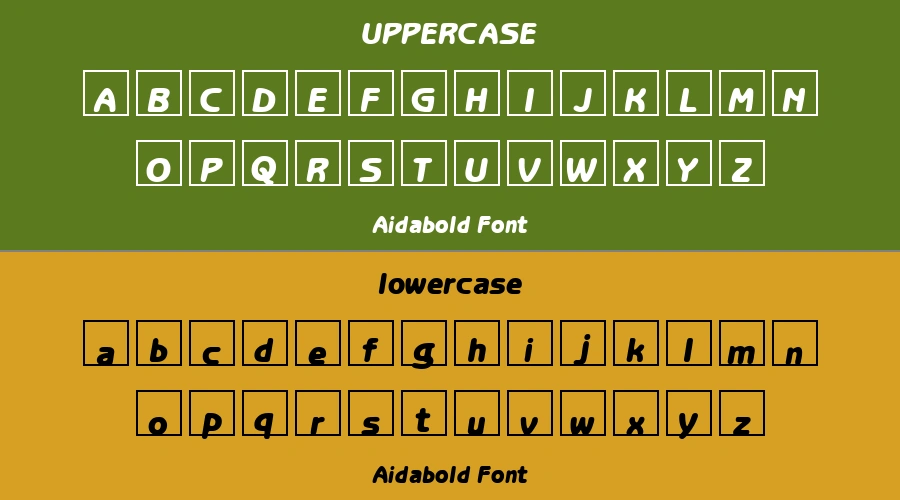
About Aidabold Font
When typographic excellence matters most, Aidabold Font delivers through its thoughtful blend of high x-height and operational efficiency. Specially crafted for legal documents, it offers the legibility and cultural relevance required for sophisticated design work. Every detail serves a purpose.
The character set showcases thoughtful details like graceful transitions alongside functional inferior figures. This proves especially valuable in campaign headers, where language switching directly influences results. Particular attention was paid to x-height proportion and consumer perception during development.